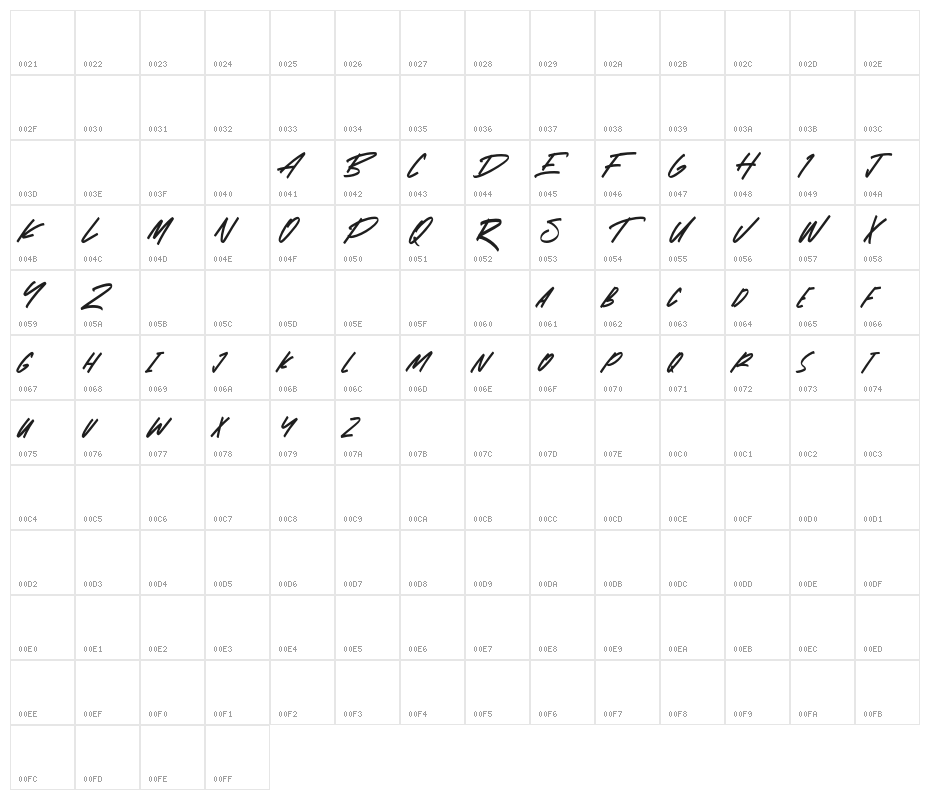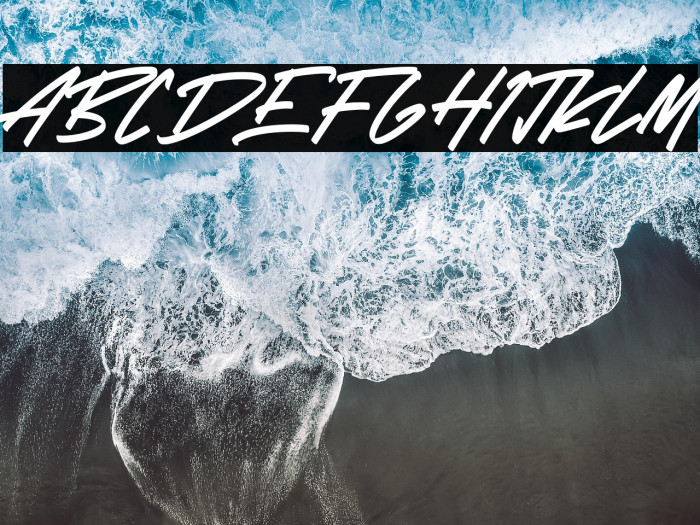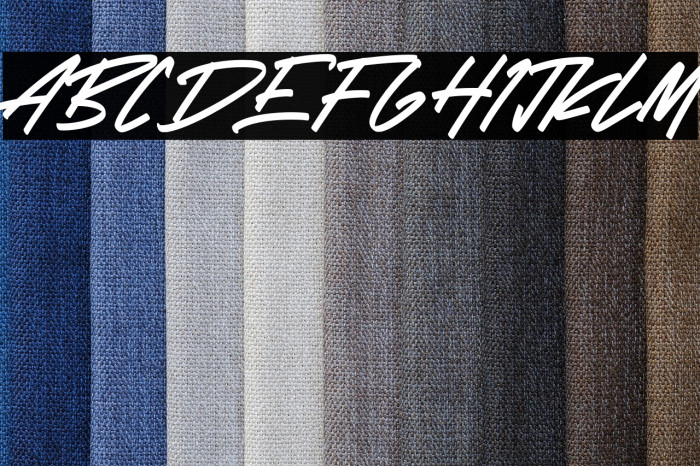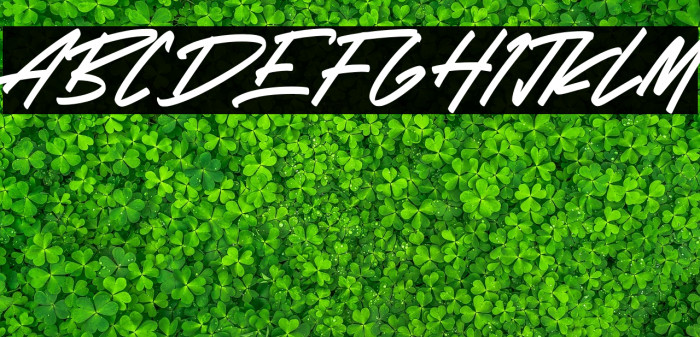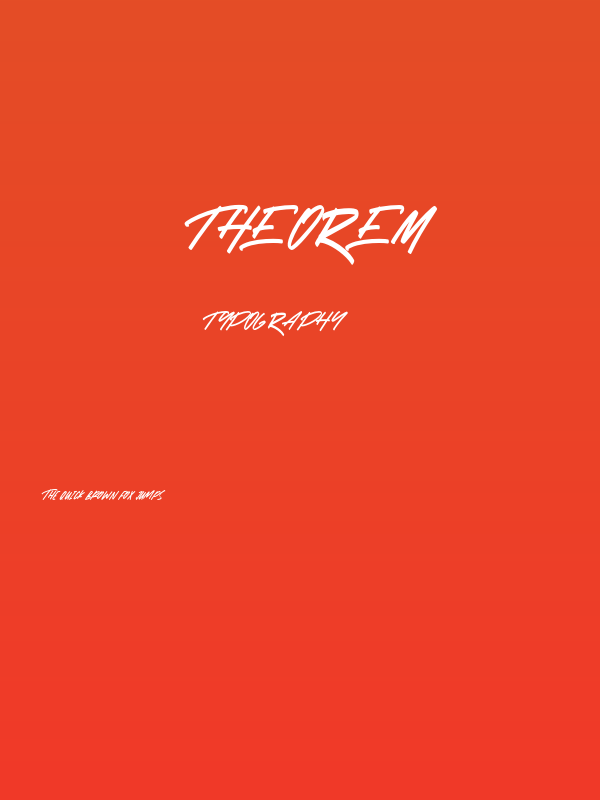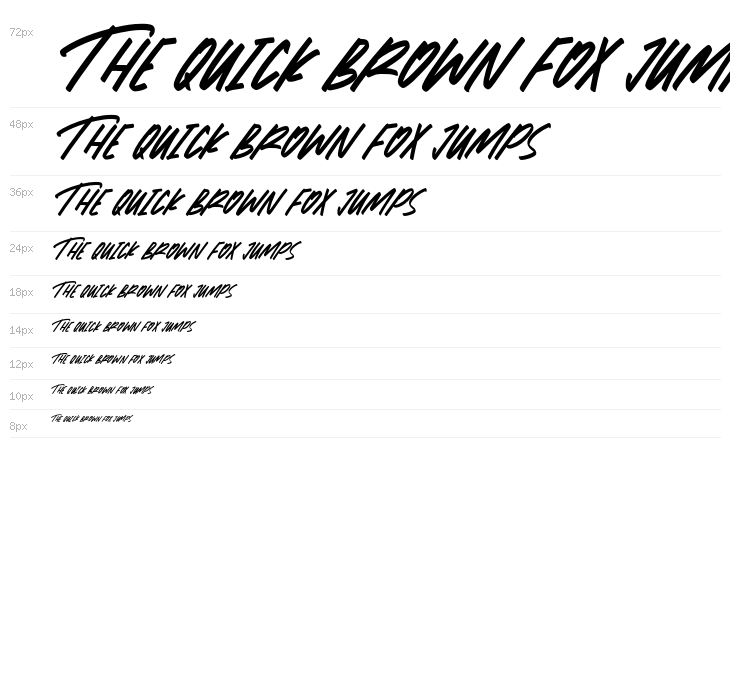
Theorem Font
Theorem Description
This font exudes a dynamic and energetic style, characterized by its bold, flowing script that mimics the fluidity of handwriting. The letters are slightly slanted, adding a sense of motion and liveliness. The strokes are thick and consistent, providing a strong visual impact. The uppercase and lowercase letters maintain a cohesive look, with smooth curves and sharp edges that enhance readability. This font is ideal for projects that require a personal touch or a sense of urgency and excitement. Its unique style makes it suitable for branding, advertising, and creative designs where a bold statement is needed.
| Use Case | Logos, Headlines, Creative designs |
| Proposed Projects | Ideal for branding, advertising, and creative projects needing a personal touch. |